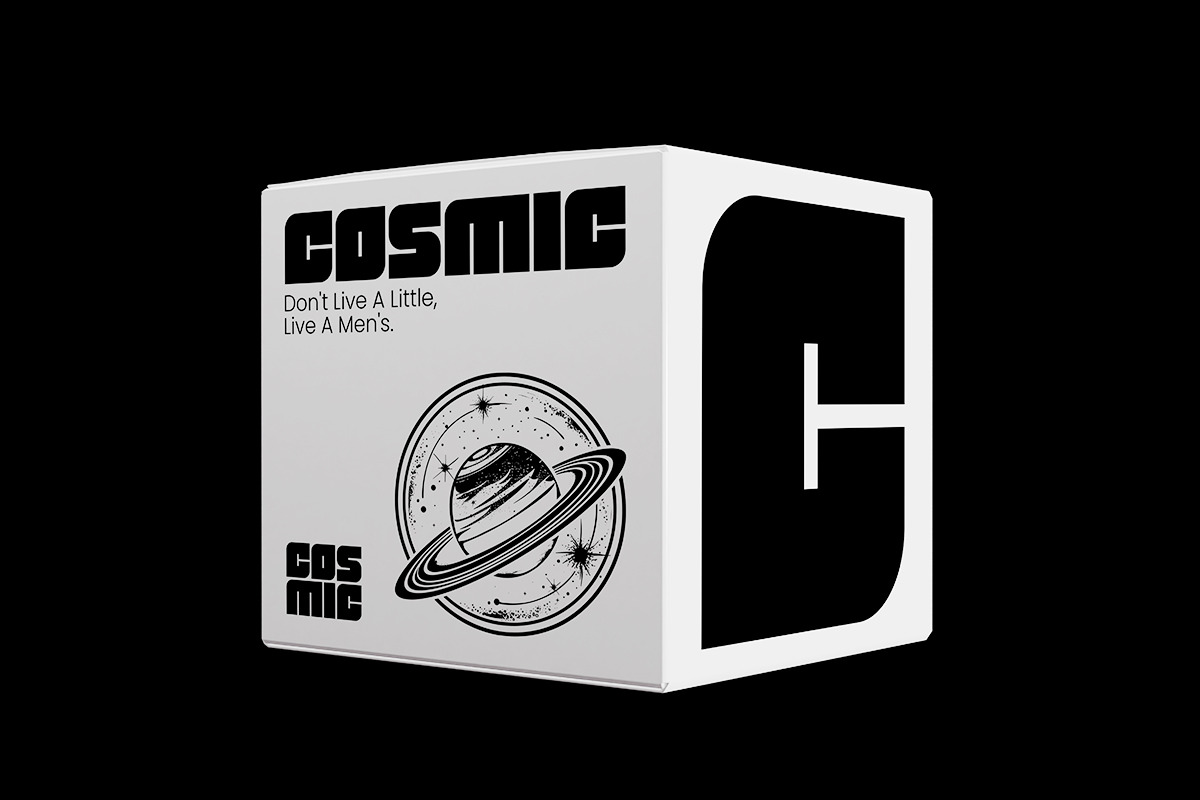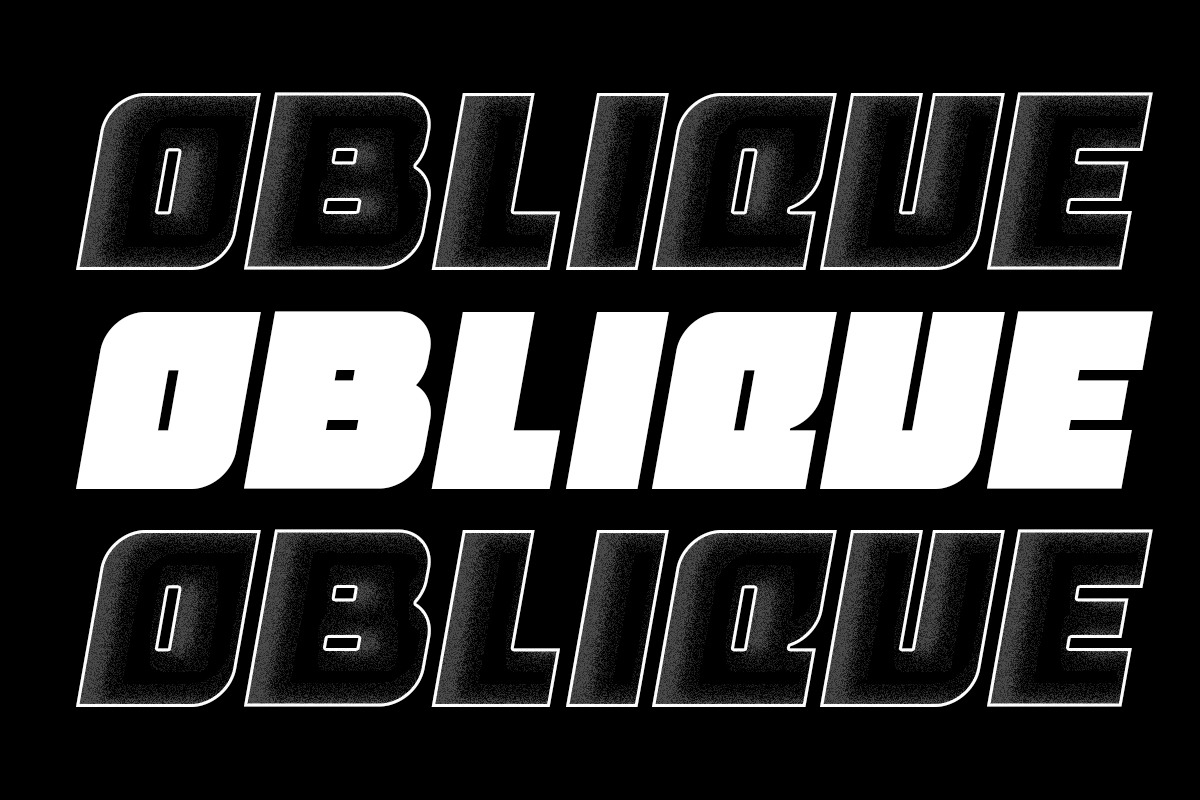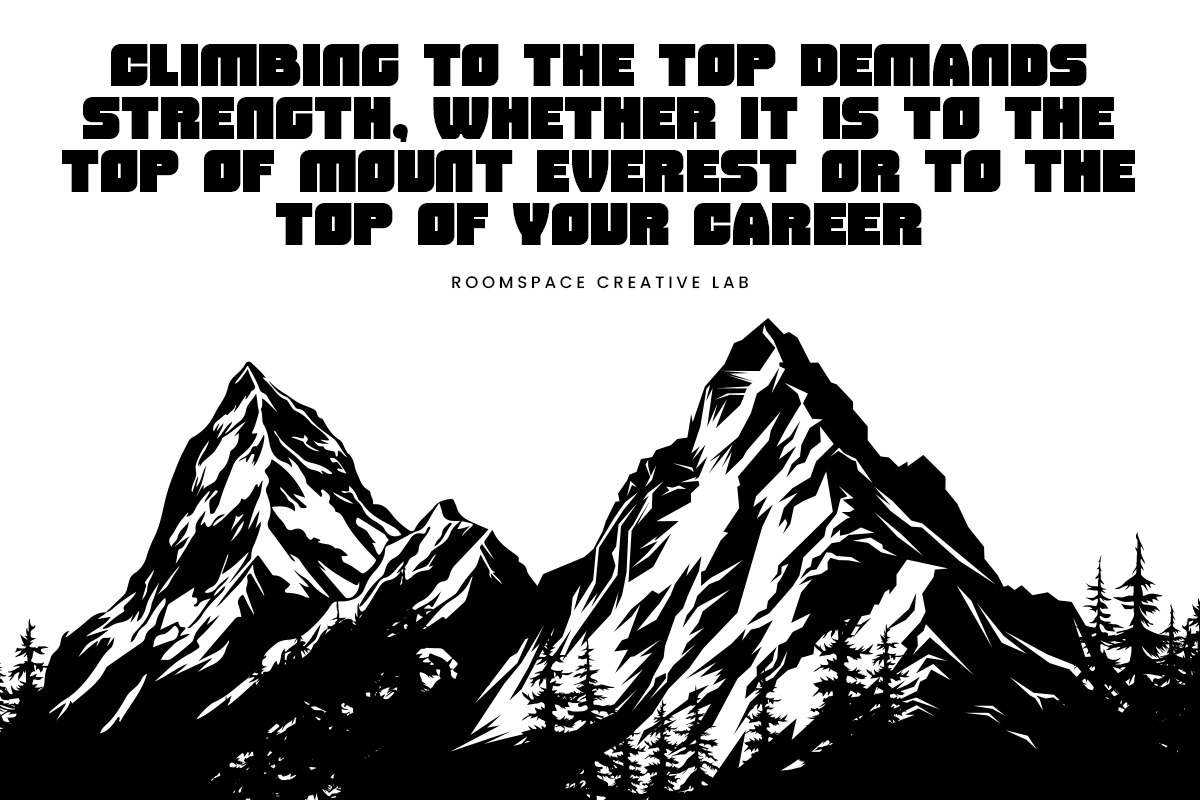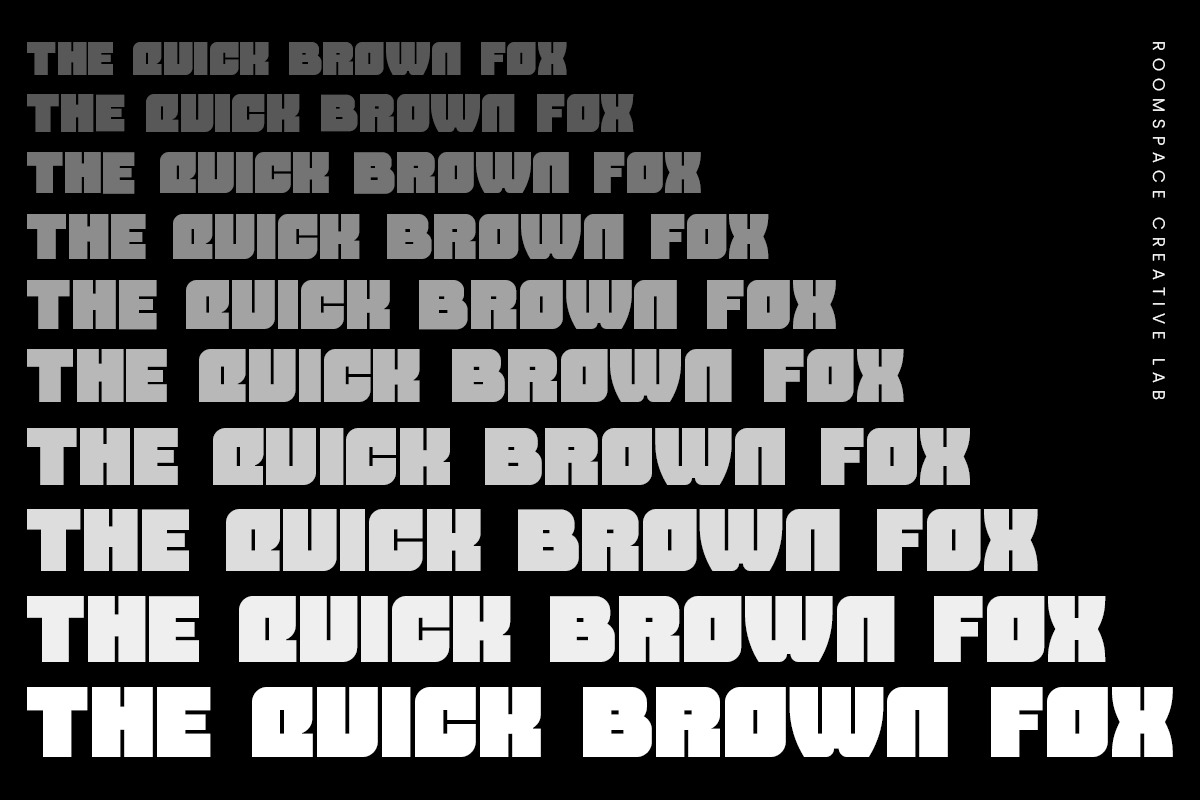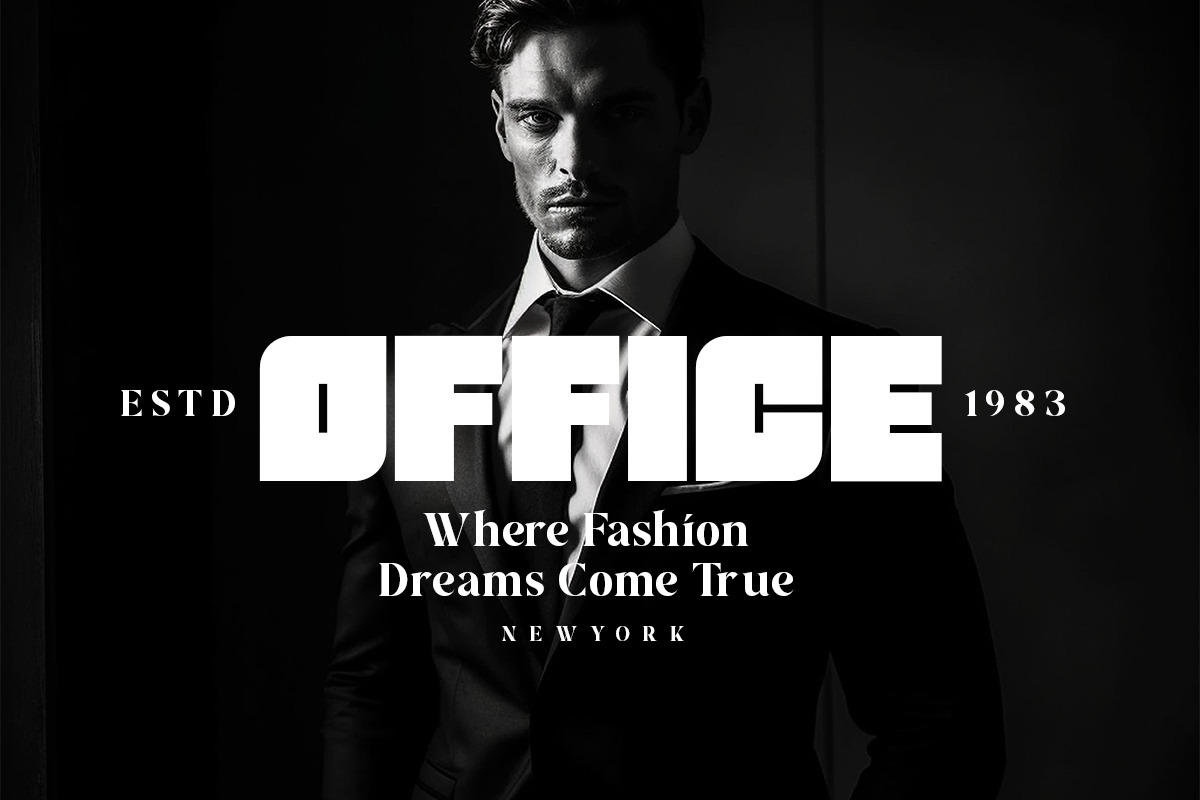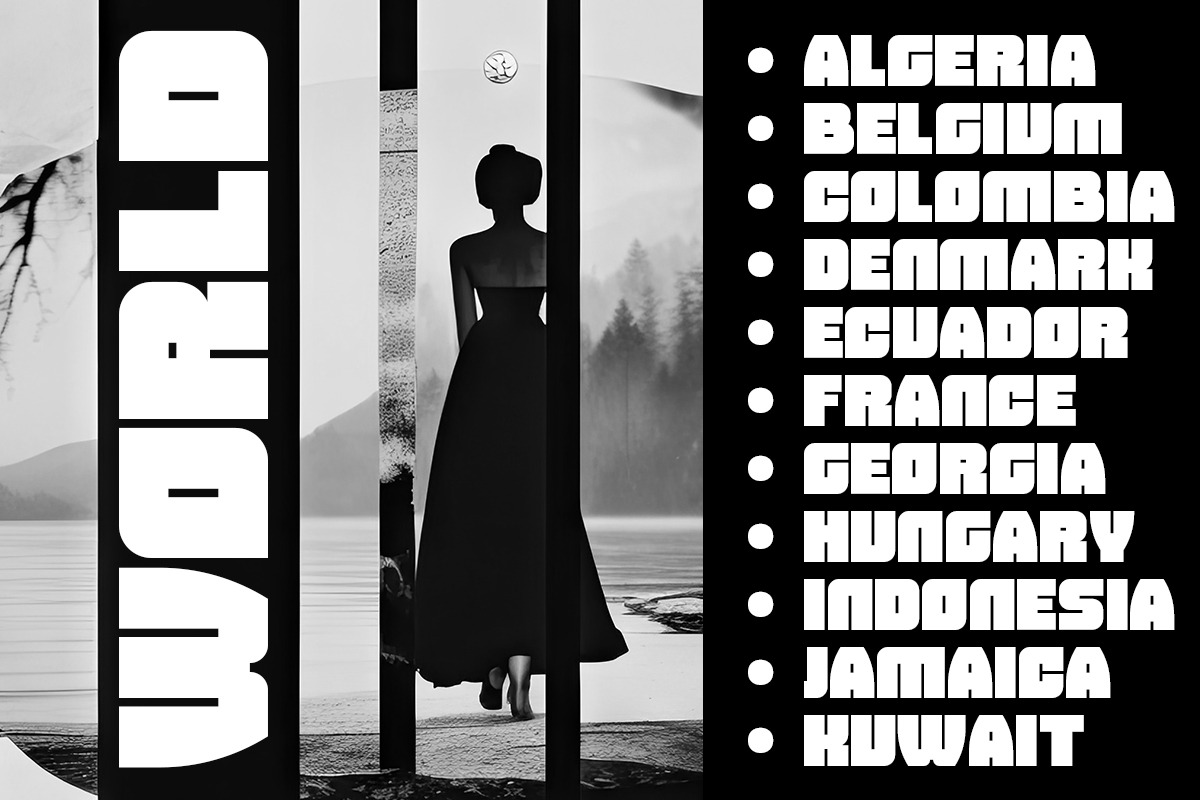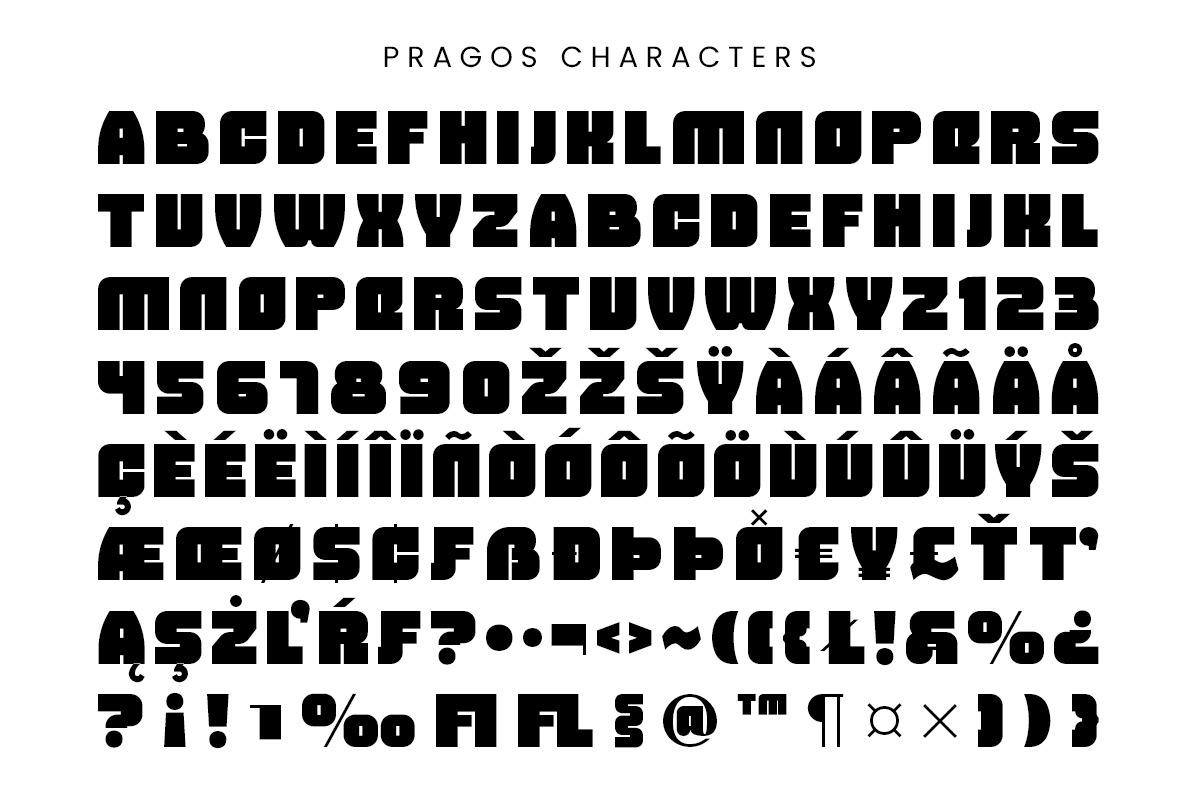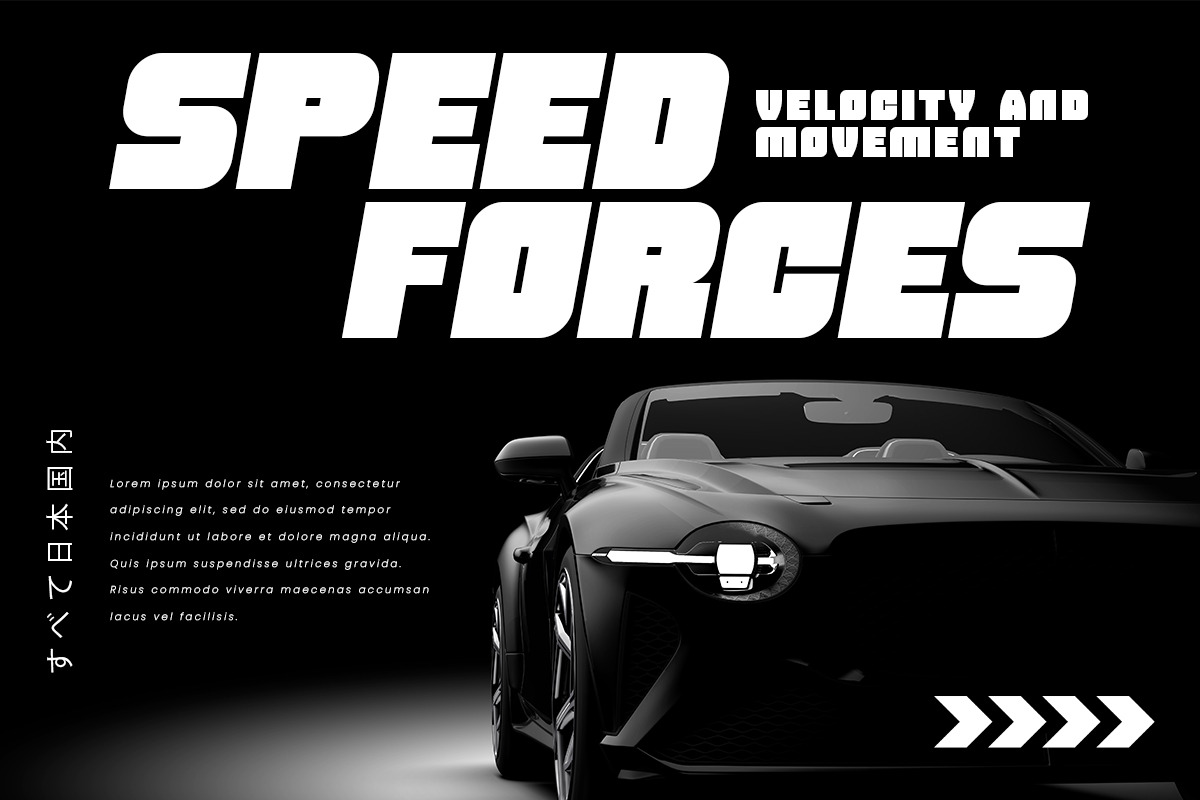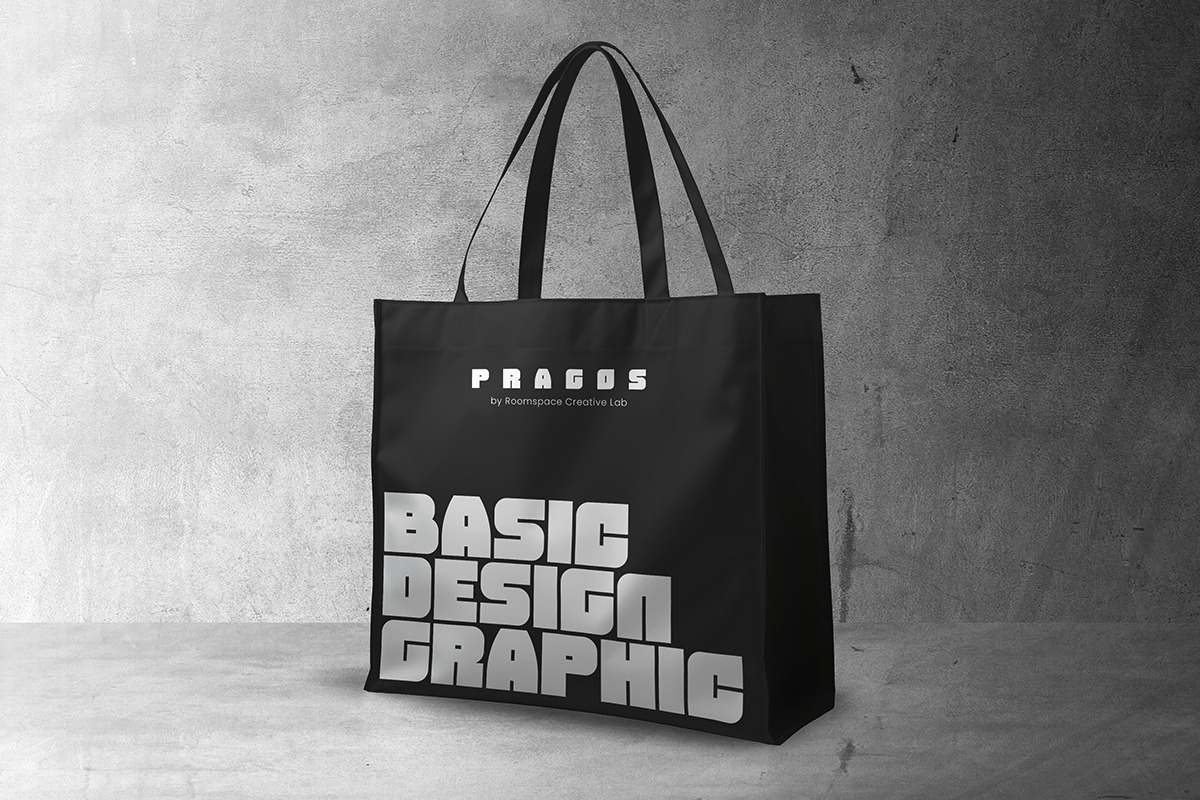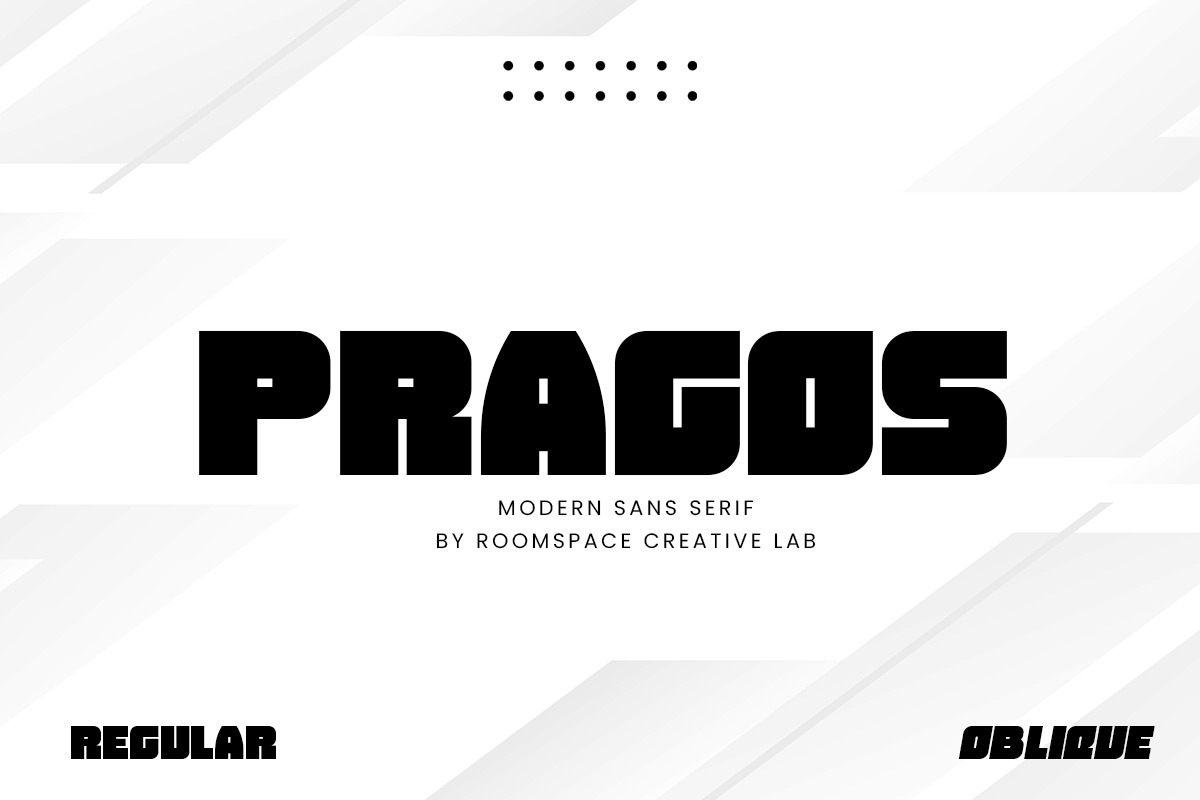
Pragos - Modern Sans Serif Font
Pragos is a geometric sans-serif font designed to convey a modern and robust impression. This font combines consistent boxy elements with smooth, curved touches, creating a perfect balance between strength and subtlety. Each character in Pragos is meticulously crafted, offering a neat, structured, yet elegant appearance. With its bold lines and unique shapes,
Pragos is ideal for use in headlines and logos. This font not only emphasizes high readability but also imparts a professional and contemporary vibe. Pragos is the perfect choice for those looking to project a strong, modern image with a touch of elegance in their designs.